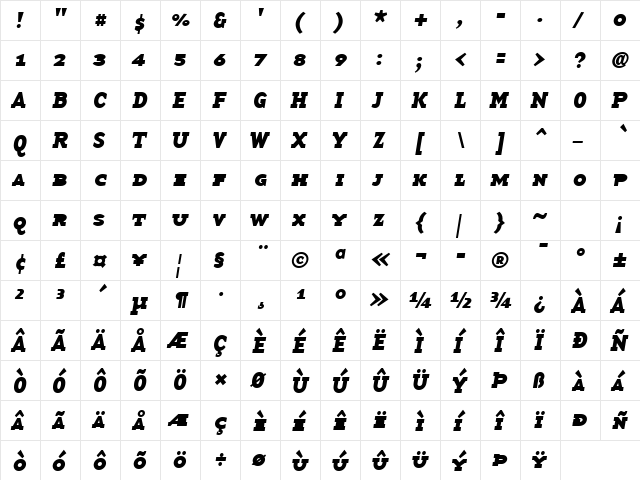
BaseTwSerifSmallCaps Bold Italic
Design Context for BaseTwSerifSmallCaps Typeface
BaseTwSerifSmallCaps brings classic typographic sensibility to the table — its serifs and measured letterforms reflect centuries of print heritage. Its italic angle brings a sense of urgency and motion to the letterforms. Its bold stroke weight gives it real presence on the page.